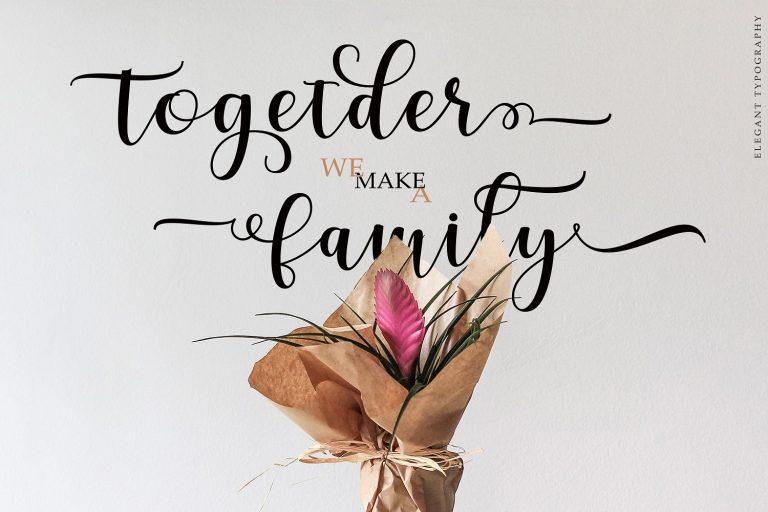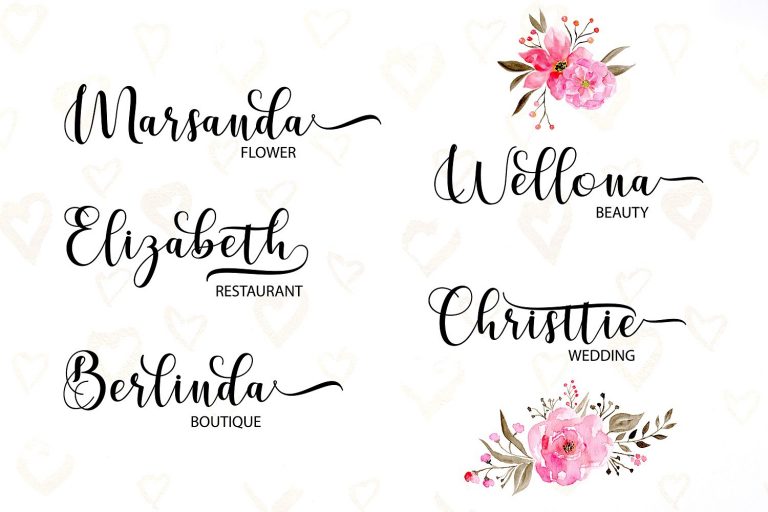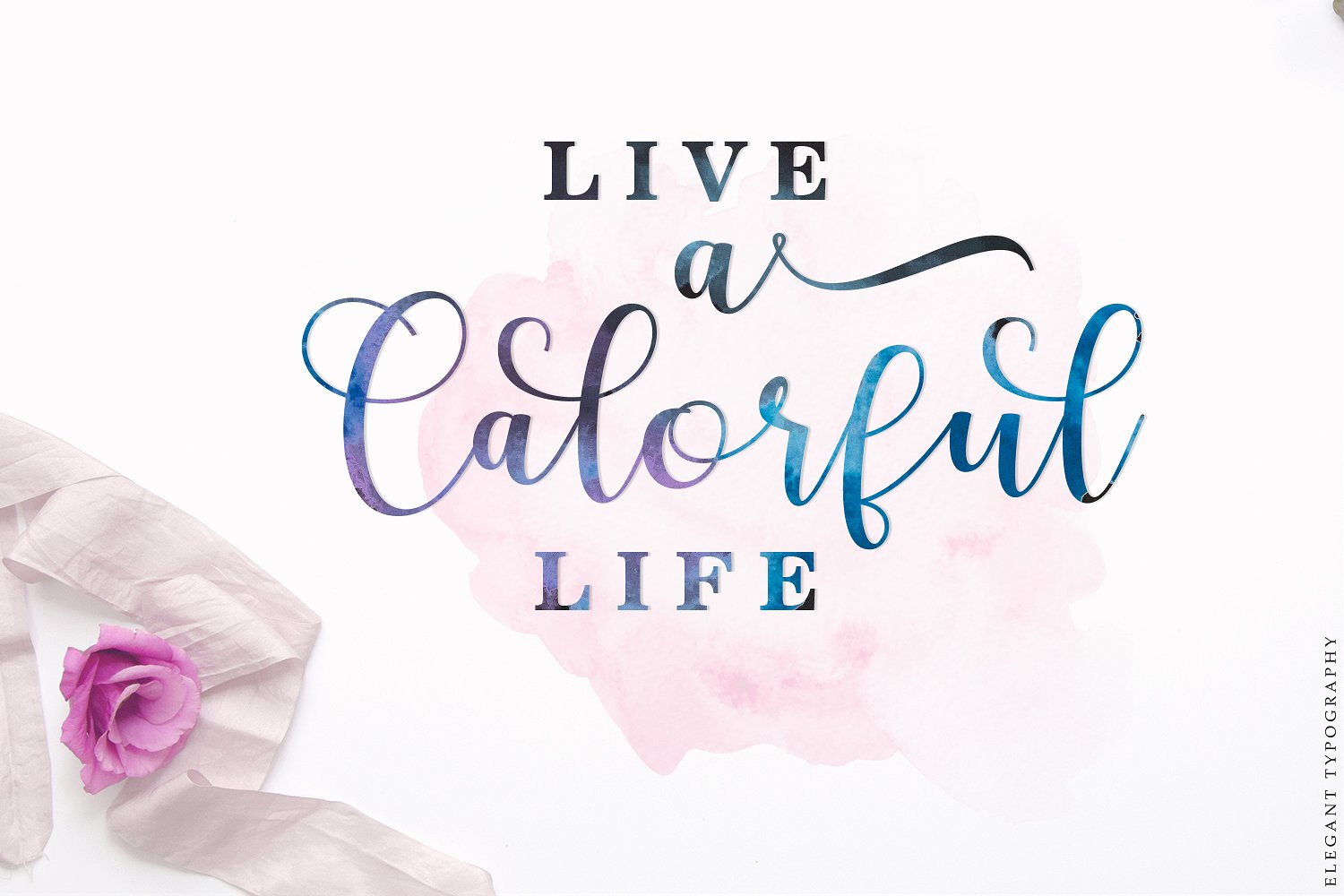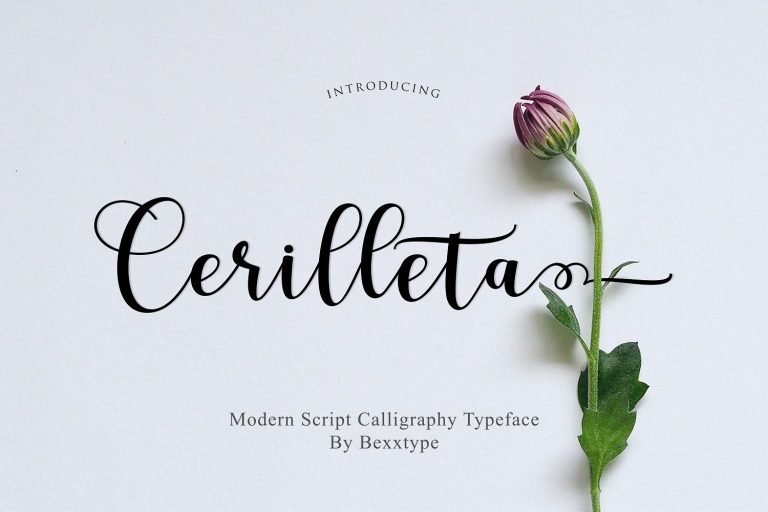
Cerilleta Script Font
A modern script calligraphy typeface that can be used in a multitude of project work. Introducing Cerilleta Font. Cerilleta font a new fresh & modern script with a handmade calligraphy style, decorative characters and a dancing baseline! Cerilleta Font is suitable to use for any kind of design such as branding projects, logo, wedding designs, social media posts, advertisements, product packaging, product designs, label, photography, watermark, invitation, poster, t-shirt design, stationery and any projects that need handwriting taste.